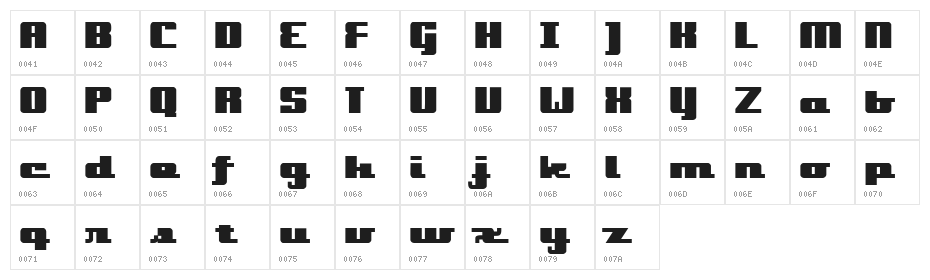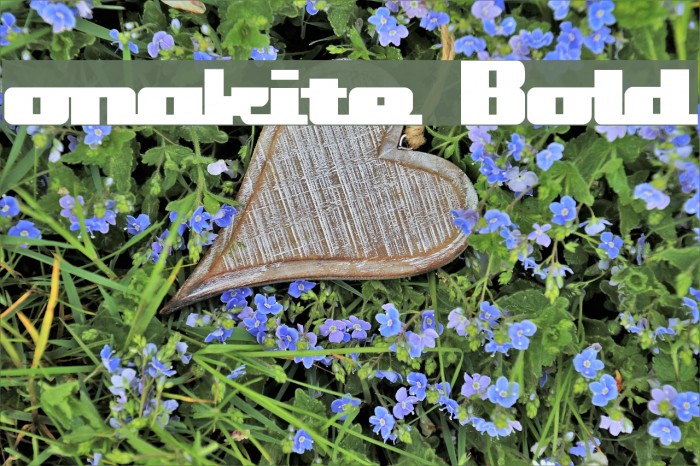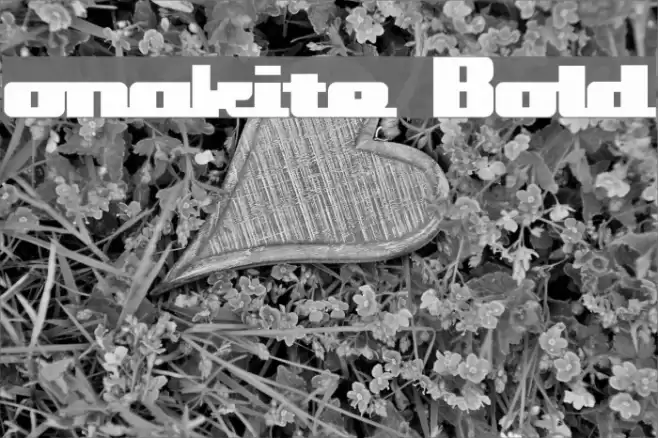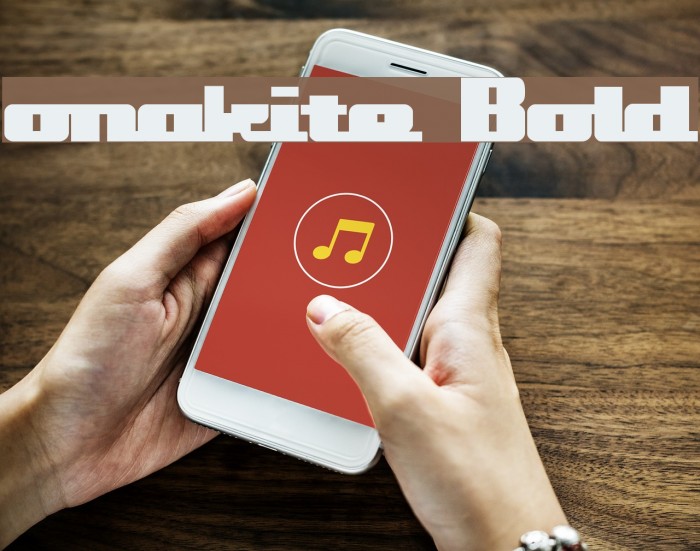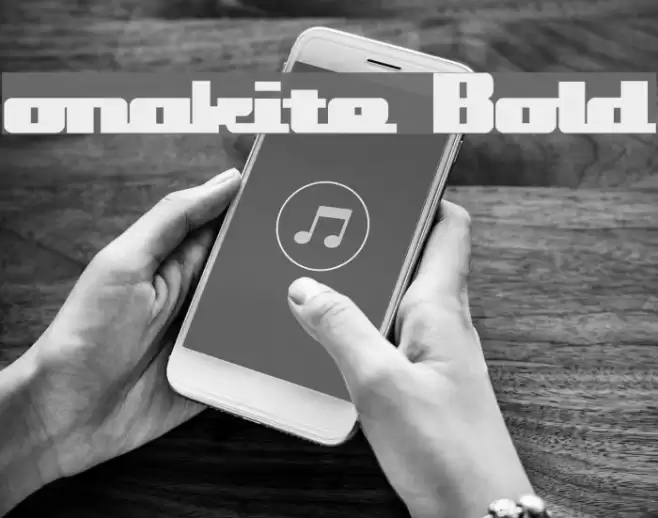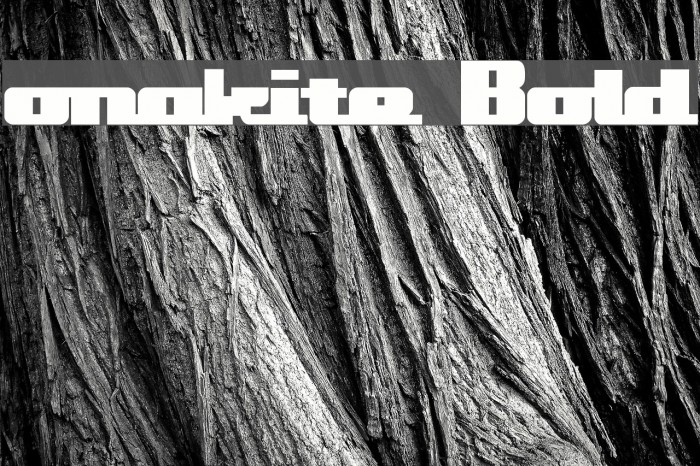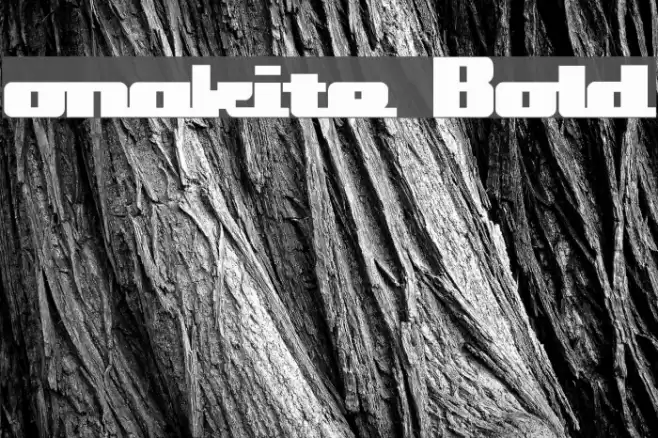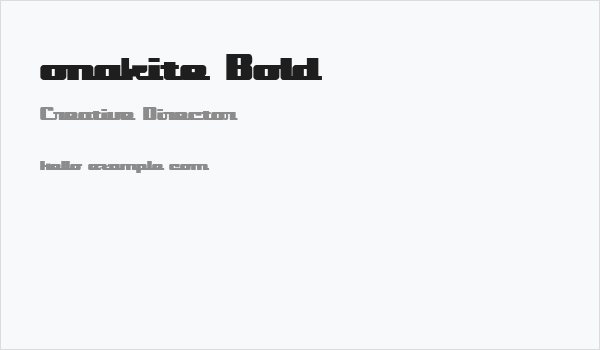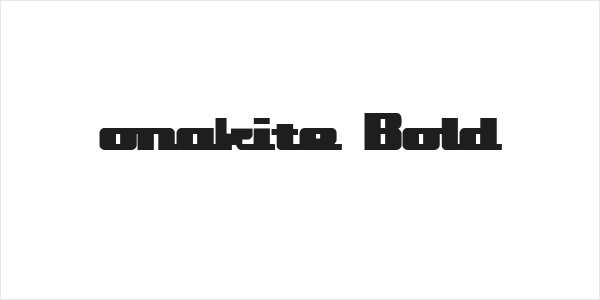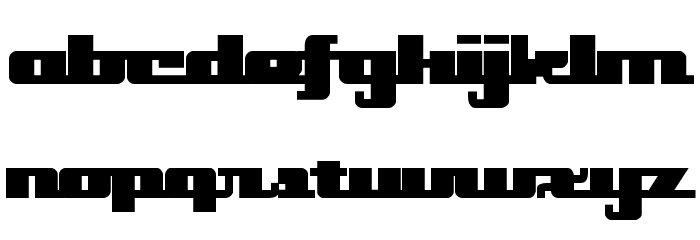
onakite Bold Font
onakite Bold Description
This font features a bold, geometric design with strong, block-like characters. The uppercase letters are uniform in height, creating a cohesive and structured appearance. The lowercase letters maintain the boldness but introduce slight variations in height, adding a touch of dynamism. The font's overall style is modern and assertive, making it suitable for impactful visual statements. The characters are tightly spaced, enhancing the compact and powerful look. The high contrast in stroke thickness further emphasizes the boldness, making it stand out in any design.